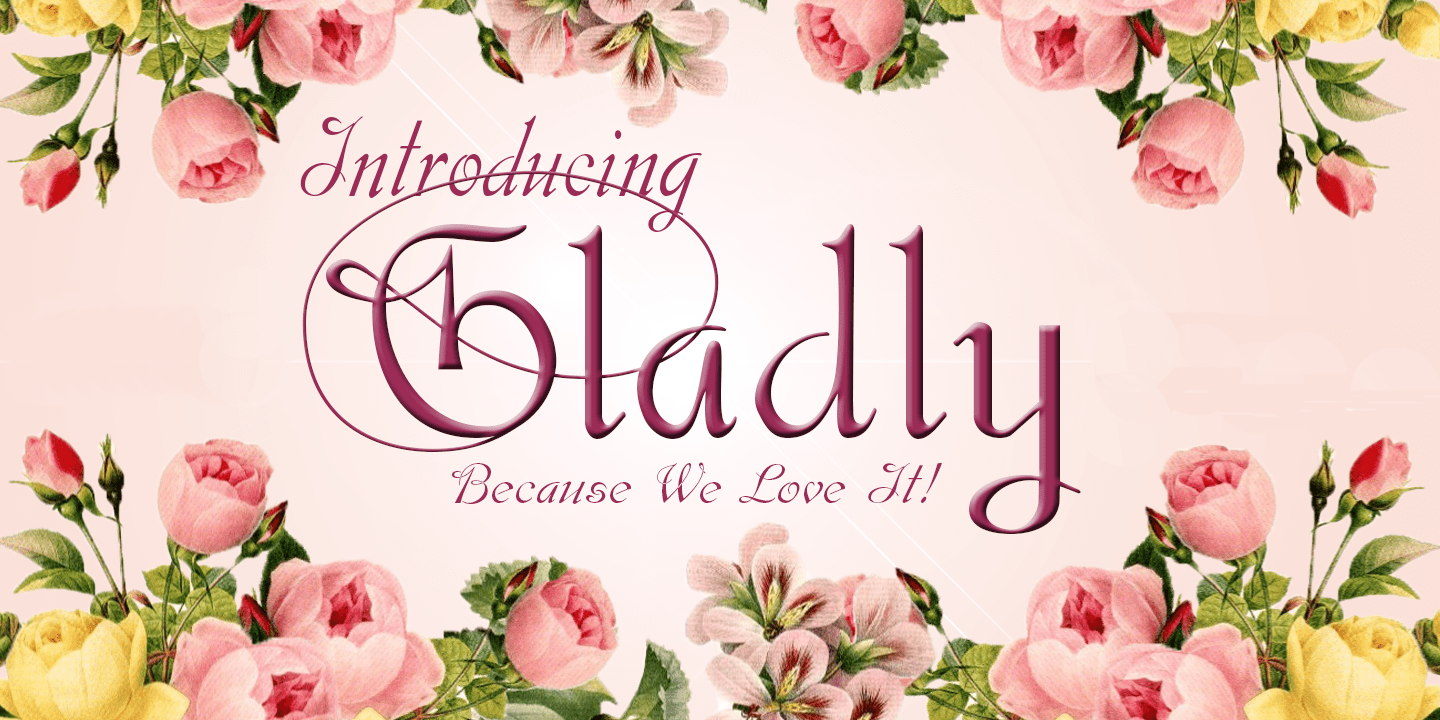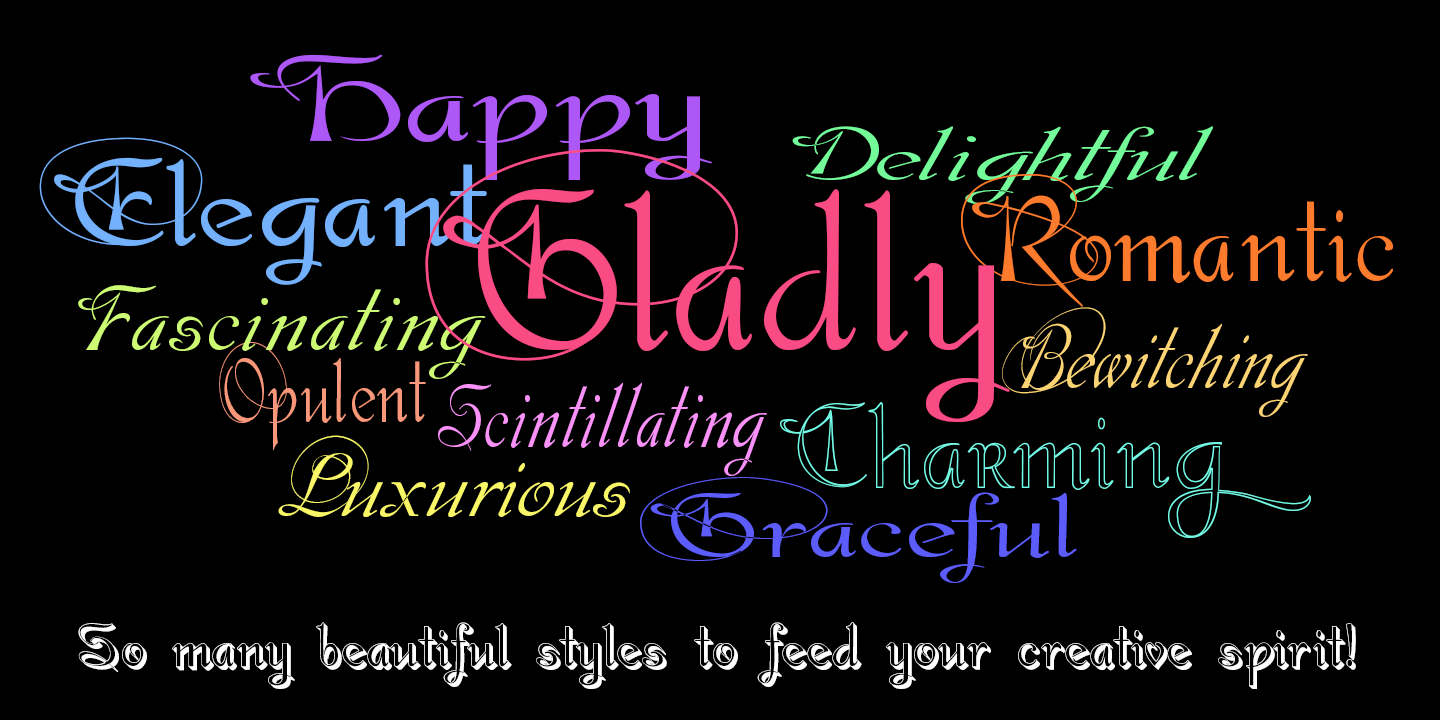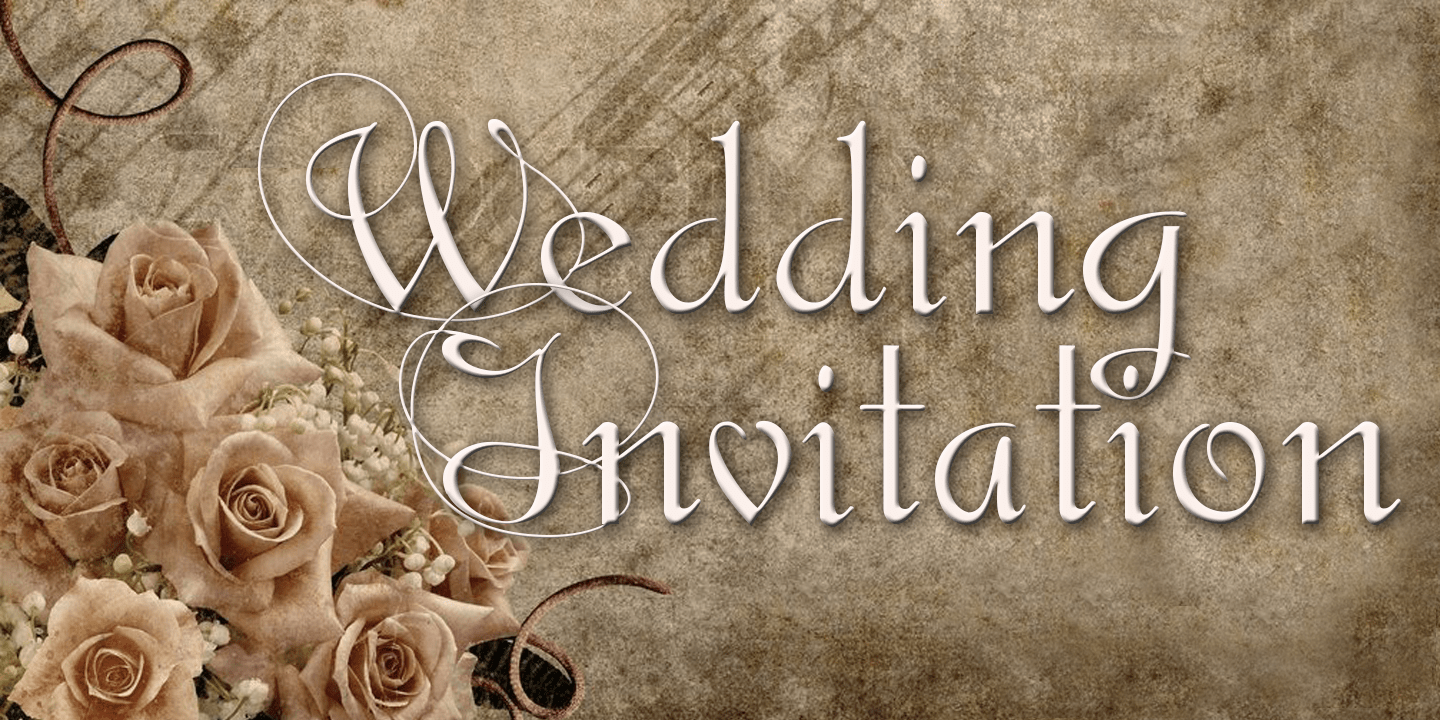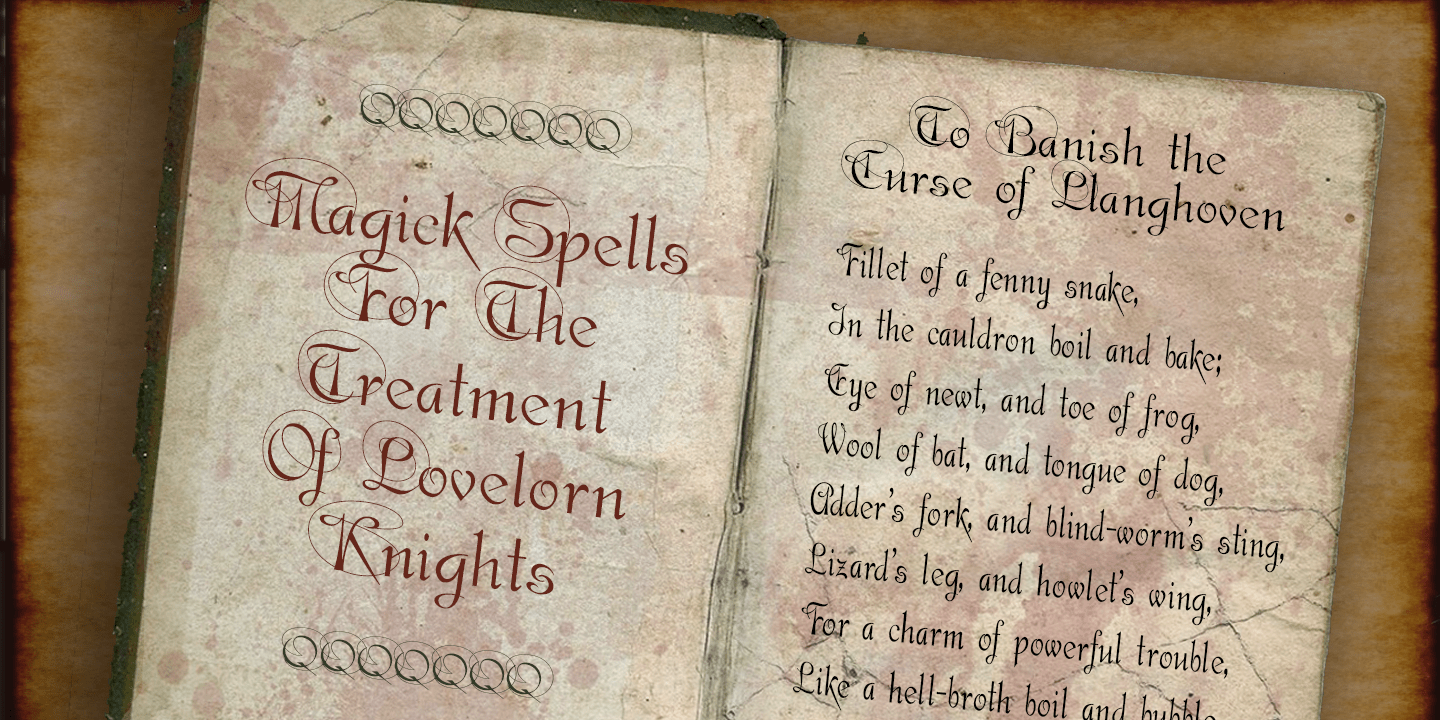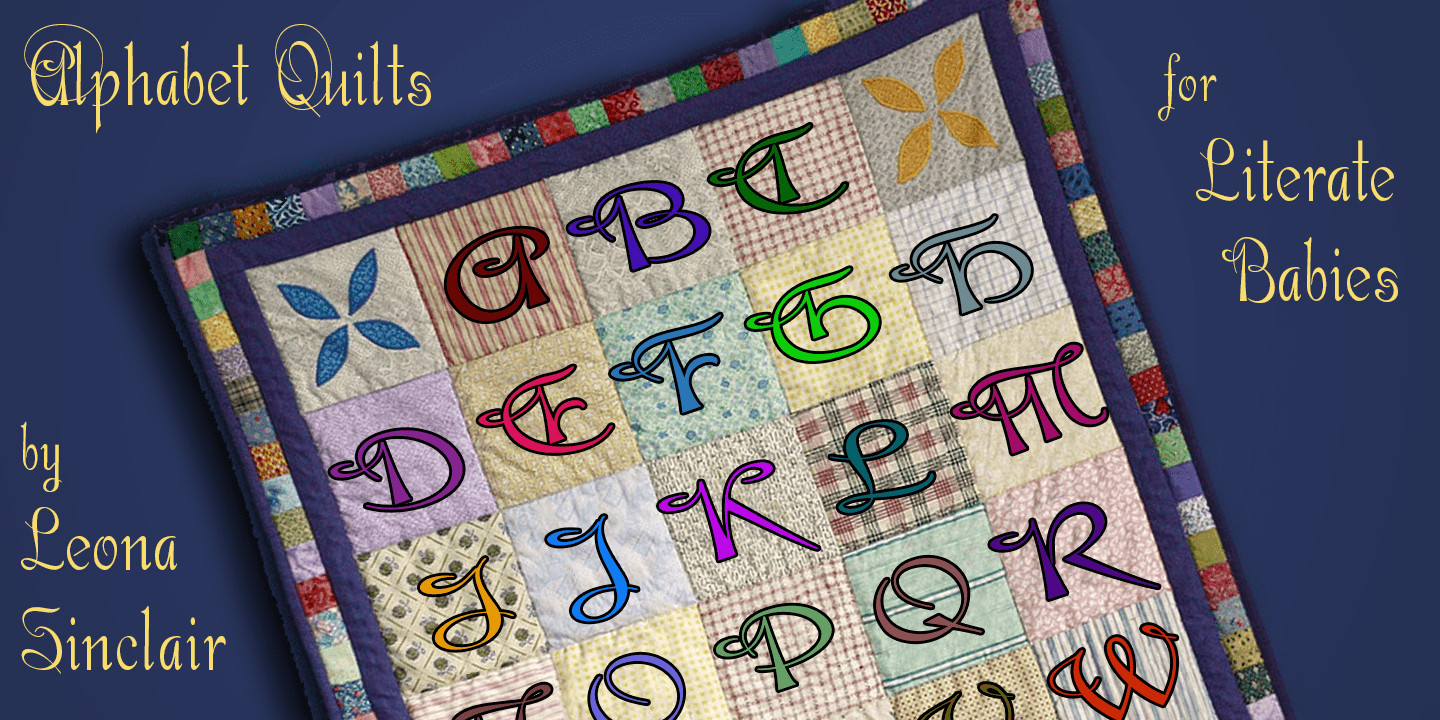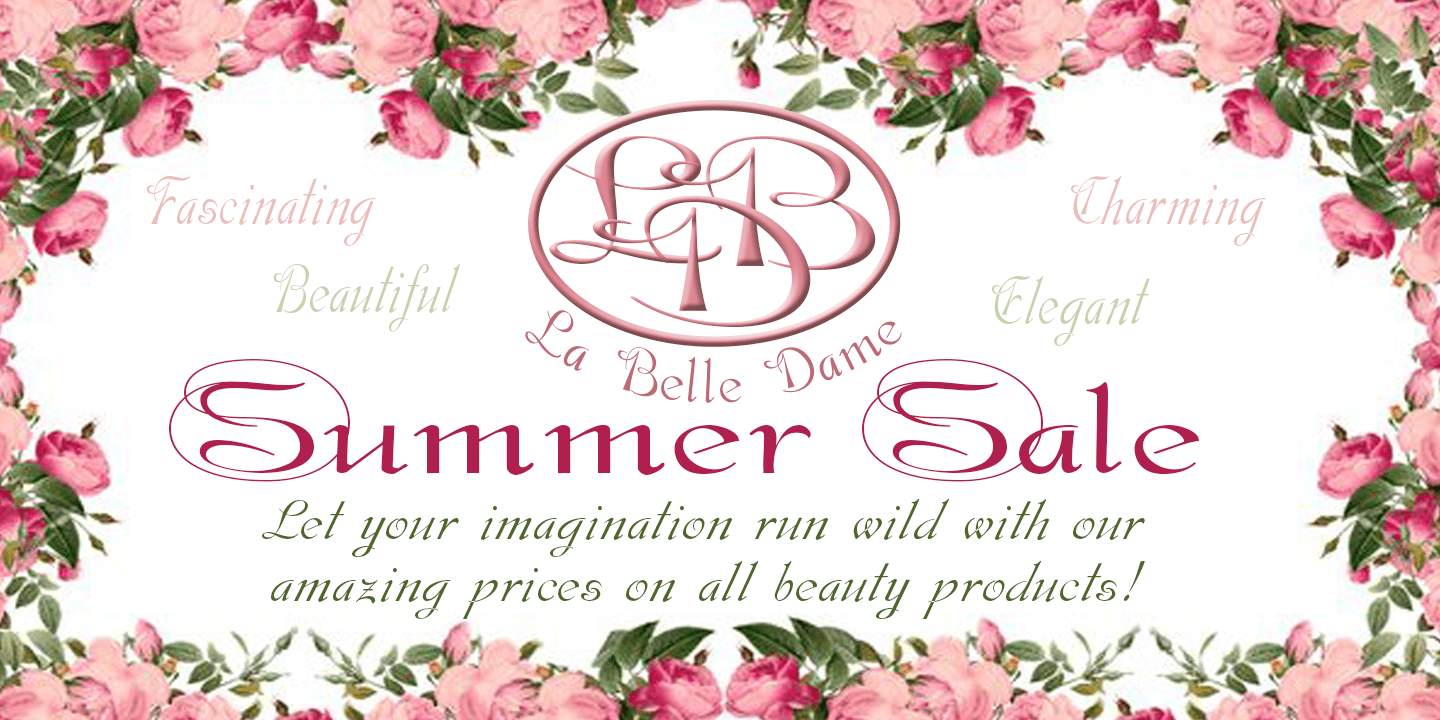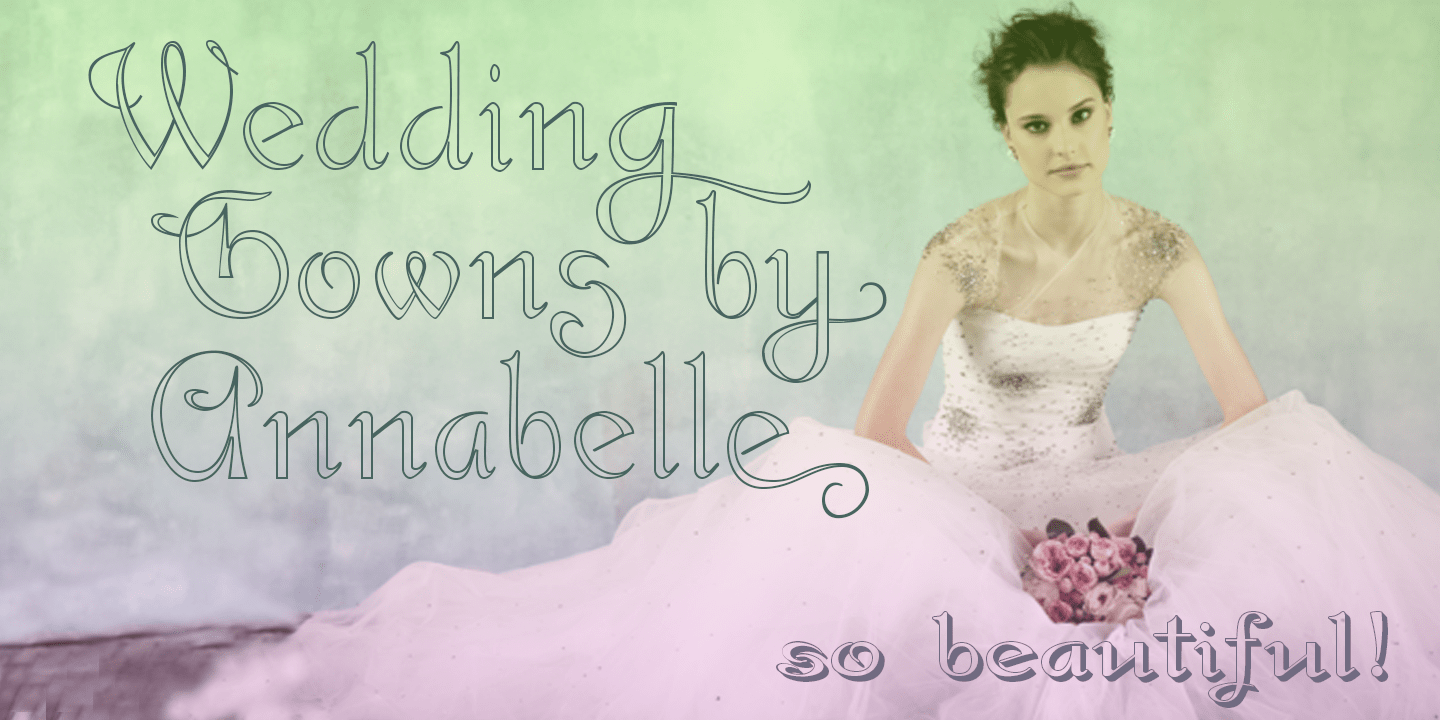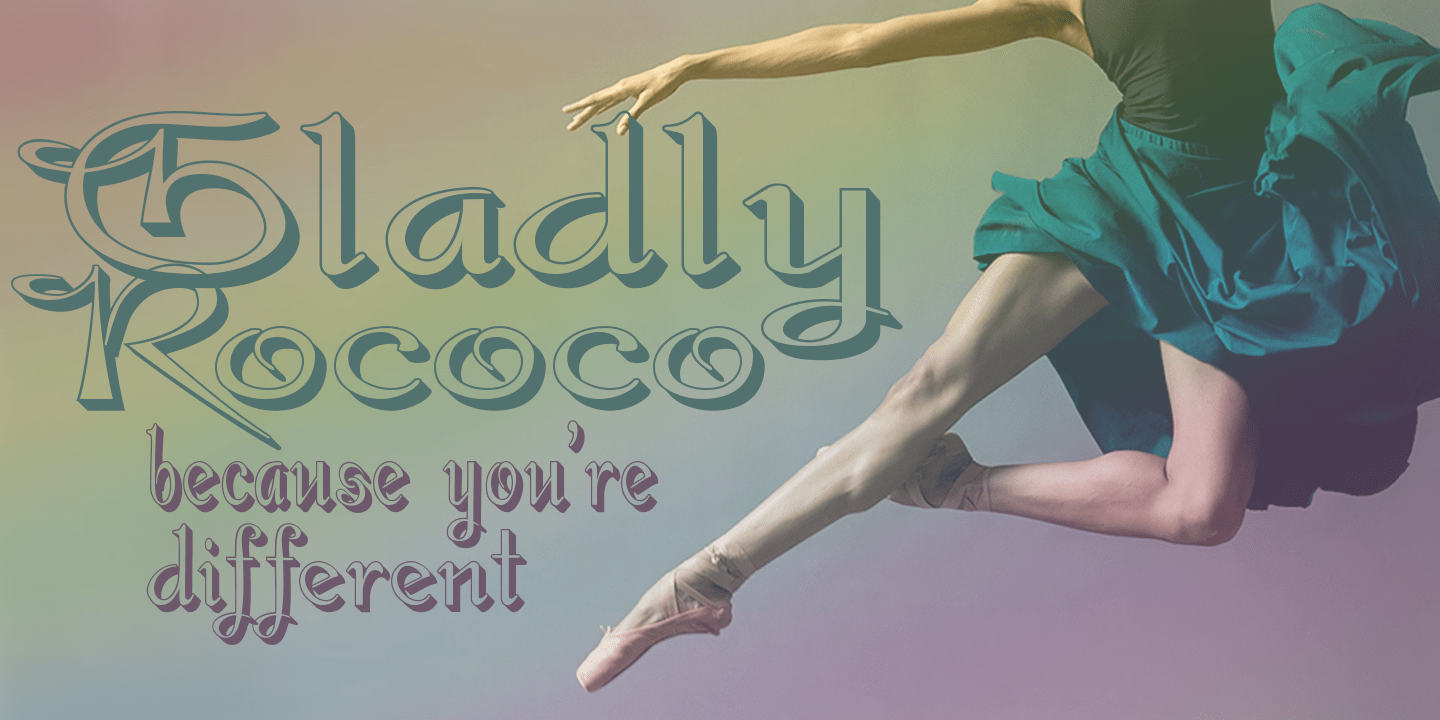
Gladly
Font Family by Scholtz Fonts
Gladly is based on an earlier Scholtz Font - Margaux, which appeared as a simple oblique font. The Gladly collection lends itself to the design, packaging and advertising of everything with a romantic feel - weddings, greetings, cosmetics, lingerie, book covers, and too many more to mention!
The set of fonts has all the features usually included in a fully professional typeface. Language support includes all European character sets.